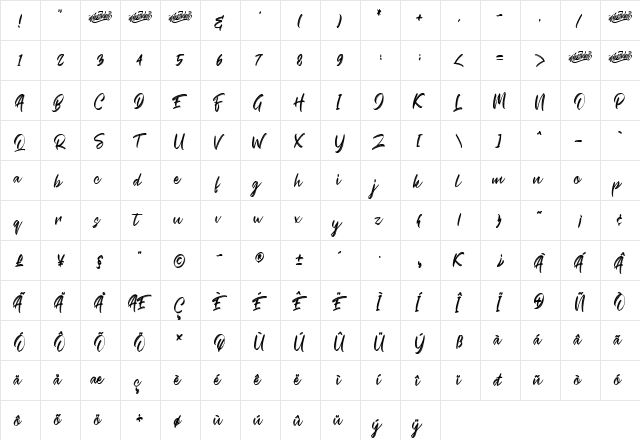
Crash Soul Regular
| Designer | Almarkhatype 2020 - Abdul malik - Ghazi |
Design Context for Crash Soul Typeface
Crash Soul is a composed and adaptable typeface that performs quietly and consistently across a wide range of design contexts.